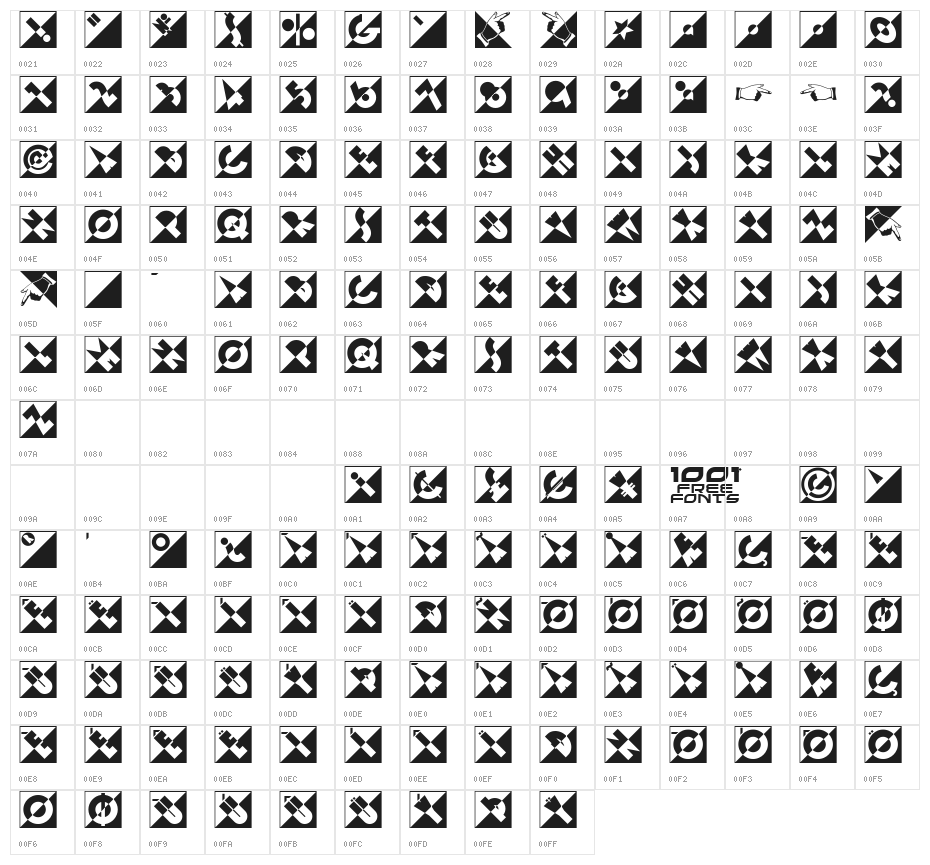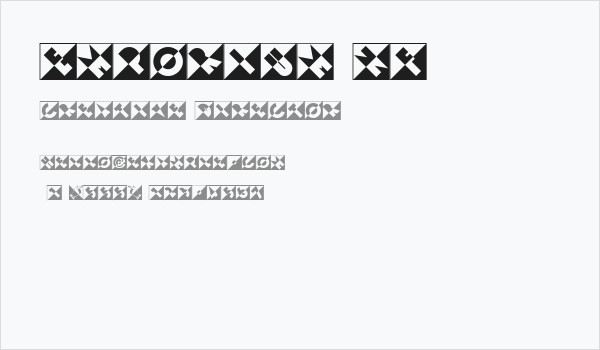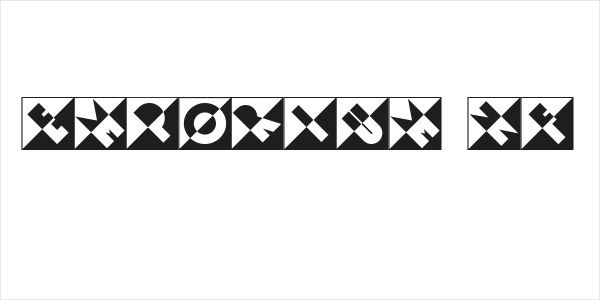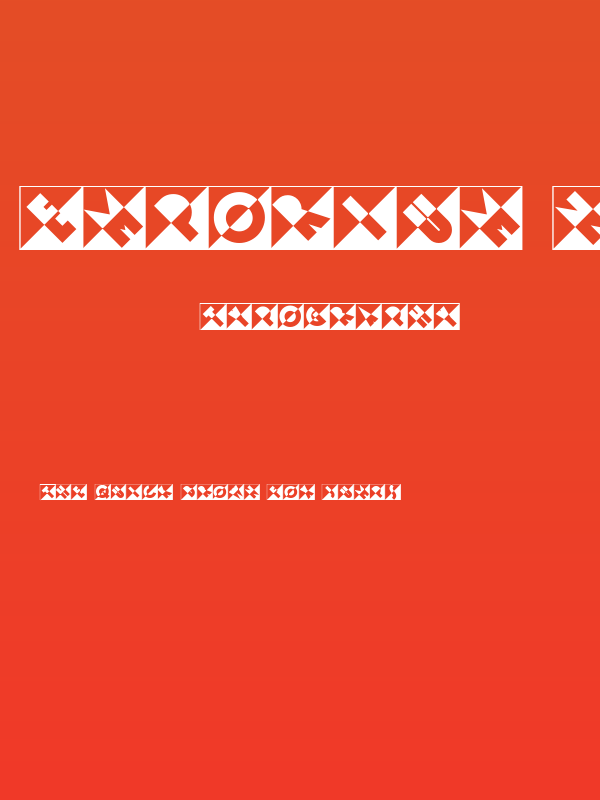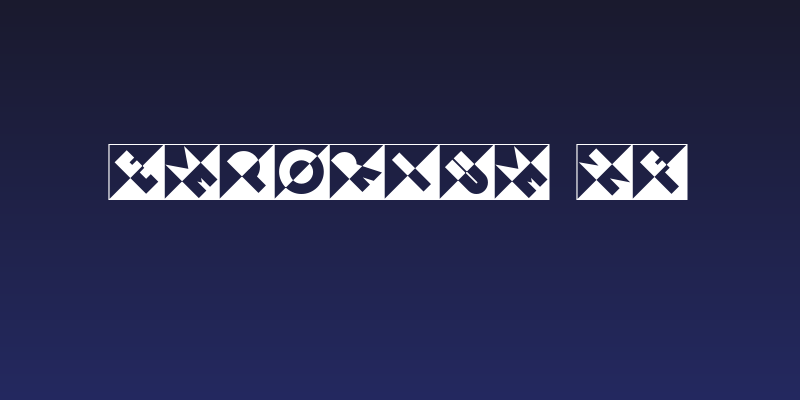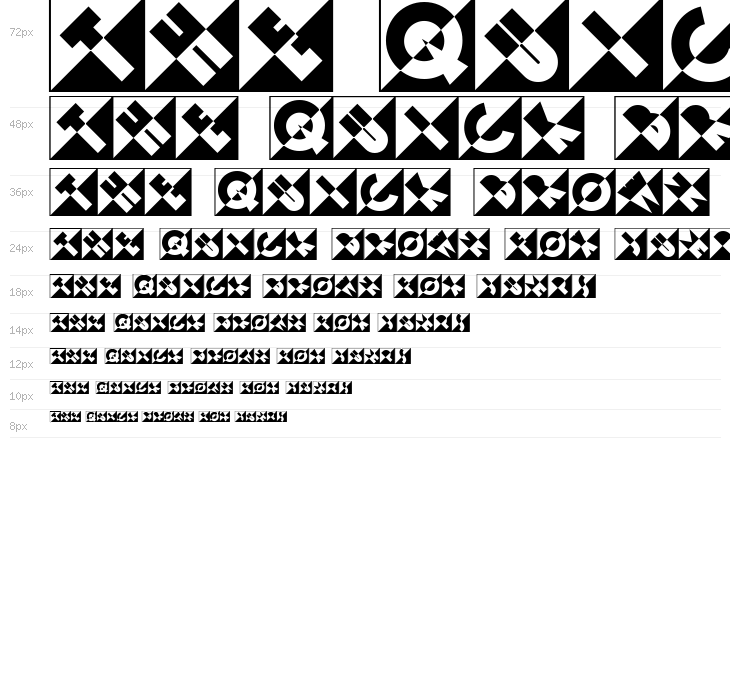
Emporium NF Font
Emporium NF Description
This font features a highly decorative and abstract style, characterized by geometric shapes and bold contrasts. Each character is enclosed within a square, divided diagonally into black and white sections, creating a striking visual effect. The letters and numbers are formed using a combination of circles, triangles, and lines, resulting in a unique and artistic appearance. The design is reminiscent of modern art, with a playful yet sophisticated aesthetic. This font is not intended for readability but rather for artistic expression, making it ideal for creative projects that require a bold statement.
| Overall Style | Modern, Artistic |
| Use Case | Logos, Posters, Artistic Displays |
| Proposed Projects | Ideal for artistic posters, album covers, modern art installations, and creative branding projects. |